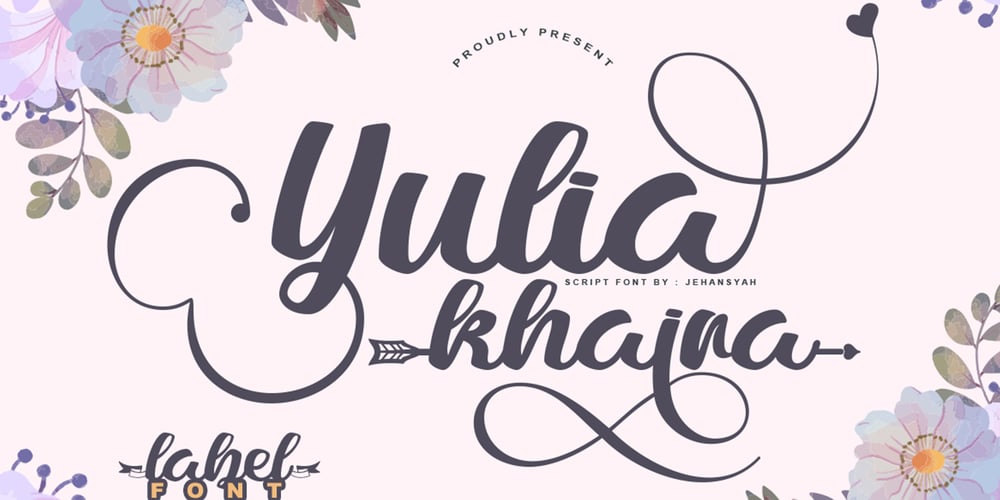
Yulia Khaira Font Family was designed by Ibram Syah and published by Jehansyah. Yulia Khaira contains 1 styles and family package options. Yulia khaira This beautiful script font is perfect for all design needs, will keep it simple but look special, plus several alternatives that support your design, make sure you don’t miss it, and it’s your favorite fontsupported by PUA encoded, which is easy to accessinclude : Yulia khaira latin numeric punctuation Alternate 400+ Thank you very much